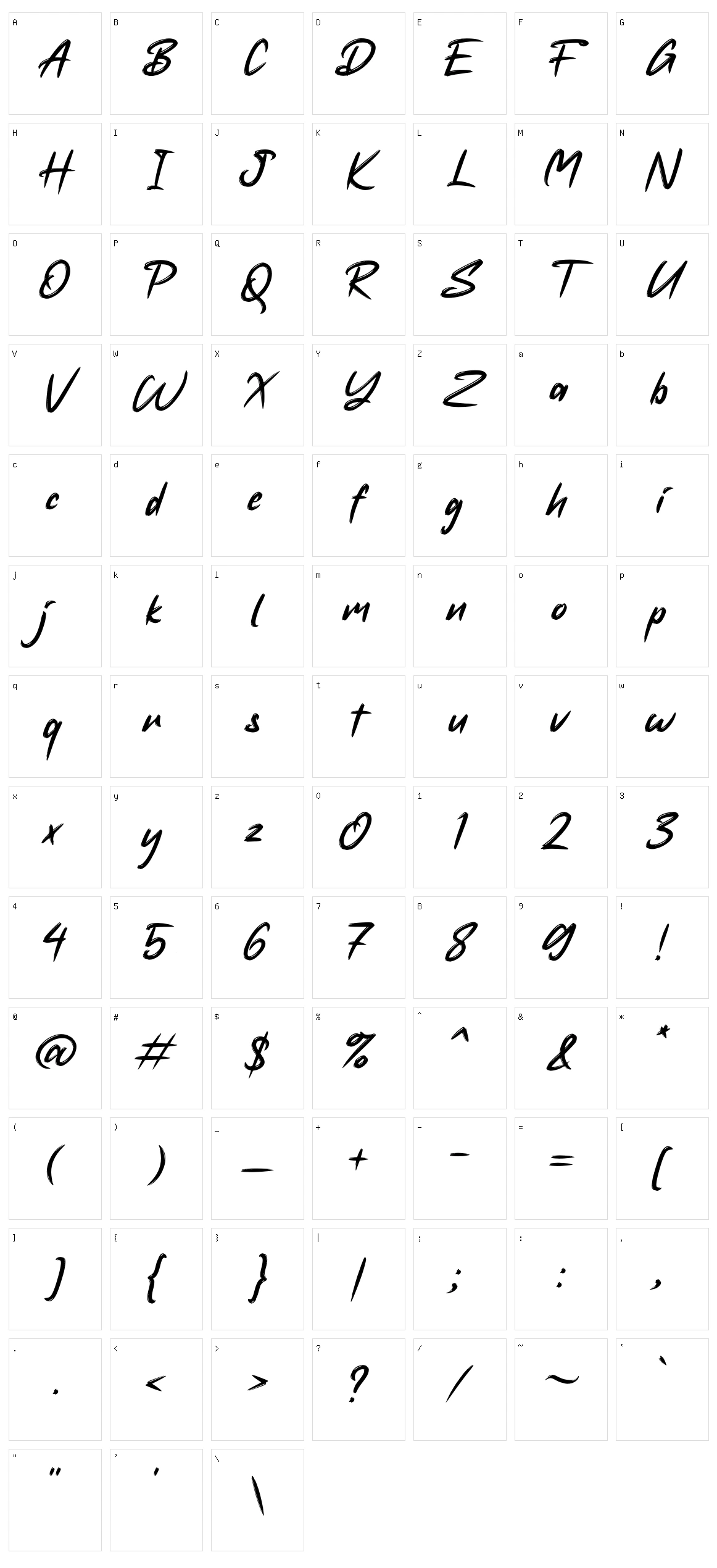
The free font Hessthicc is carefully designed by Abas Creative, showcasing a thoughtful balance of creativity and usability and falls under the Script font style. When you download the ZIP file, it contains only 75.67 KB of font files, making it lightweight and quick to download. Please review the license details below to understand permitted usage and distribution rights. If license information is not available, we recommend using this font for personal projects only or contacting the author directly for commercial usage permissions.